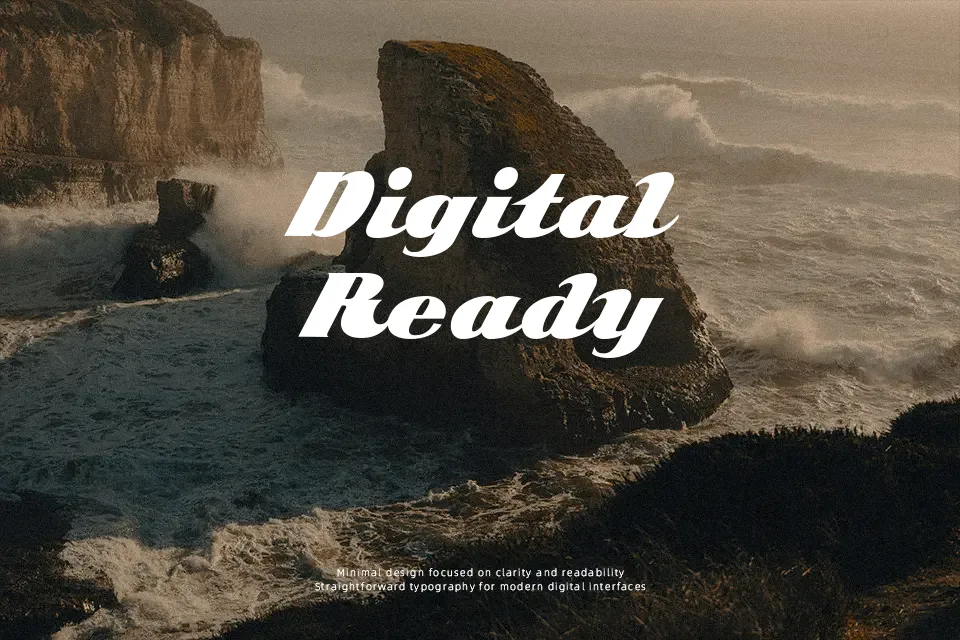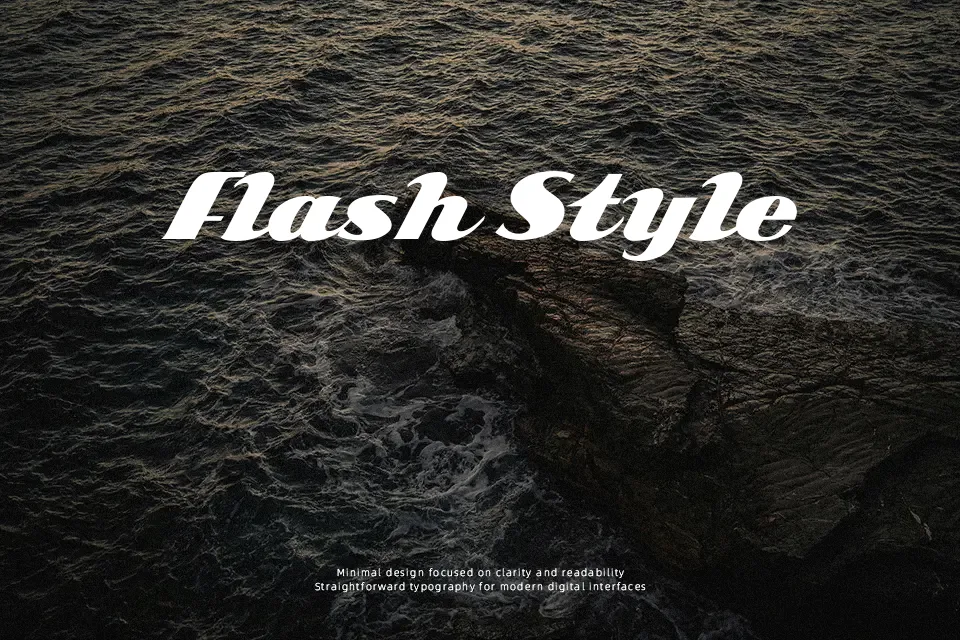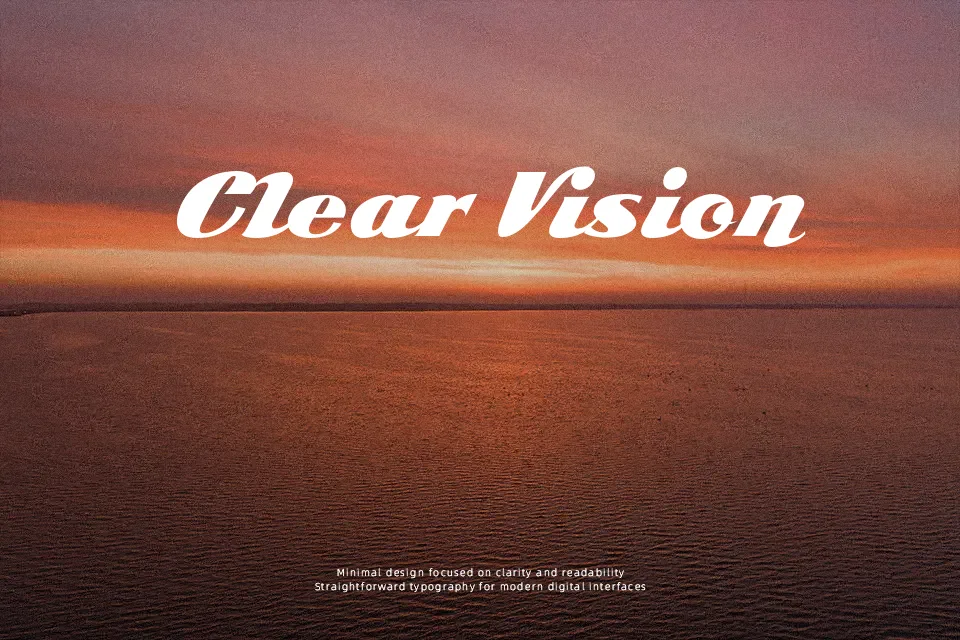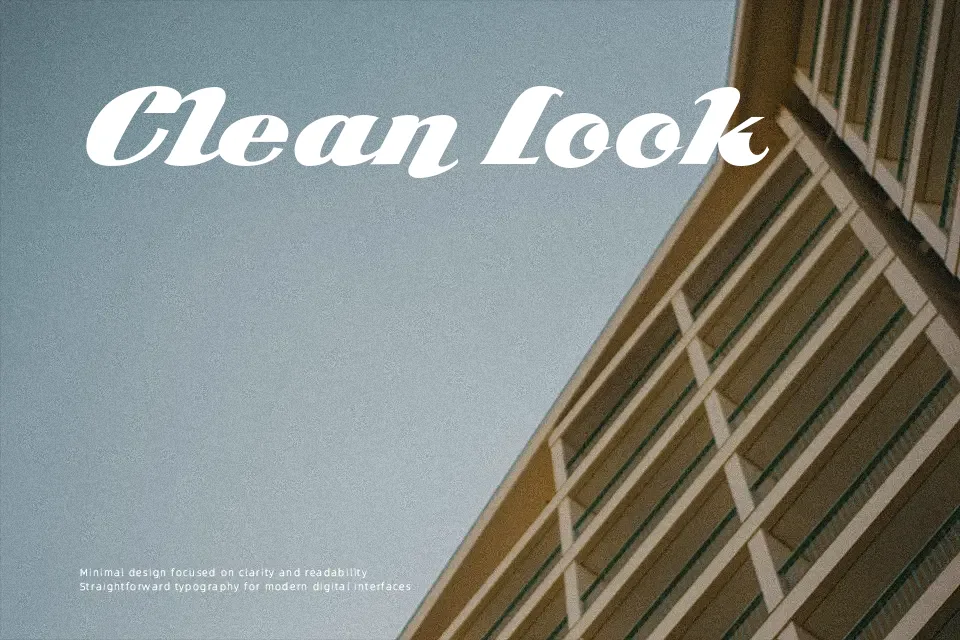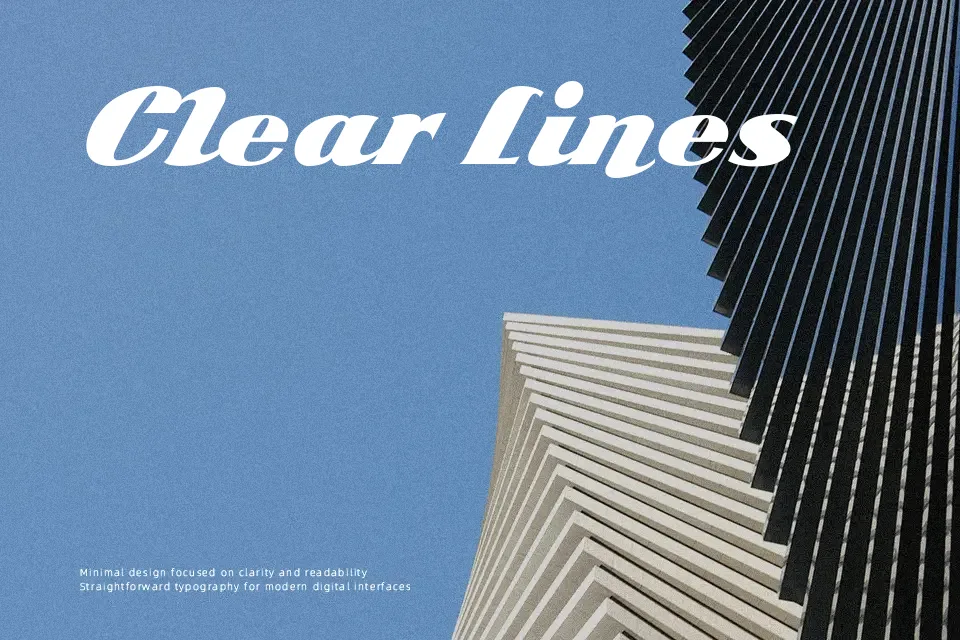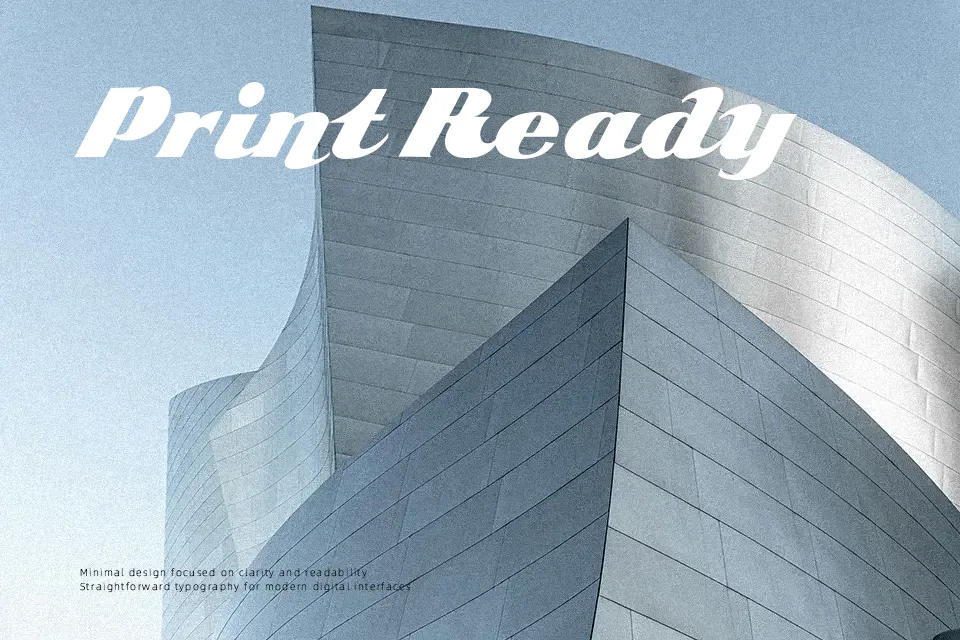
ARB 85 Poster Script JAN-39 Font
Designed by Fontry
The strokes hit hard — thick downstrokes against thin hairlines create that unmistakable pre-war poster tension that modern brush scripts rarely replicate. Drawn by Alf R. Becker in January 1939 and digitized by Michael G. Adkins of The Fontry, this script carries the rhythm of hand-lettered sign painting: slanted, confident, and built for large-scale impact. It works well on vintage-themed labels, retro event posters, and display headlines where a strong letterform identity is the point. The uppercase letters are particularly expressive, with generous curves that command attention at large sizes. That said, at small sizes the letterforms compress and legibility suffers, making it a poor fit for body copy or dense UI text.
Best For:- Vintage poster headlines and title treatments
– Retro packaging labels and bottle designs
– Band or event promotional materials with a 1930s–1940s aesthetic
– Display headers for editorial layouts
Not Ideal For:- Body text or long-form reading
– Corporate or formal business documents
– Small-size UI labels or mobile interfaces
– Multilingual content beyond the Latin character set
Perfect for advertising, branding, and headline, with a bold and calligraphy style.